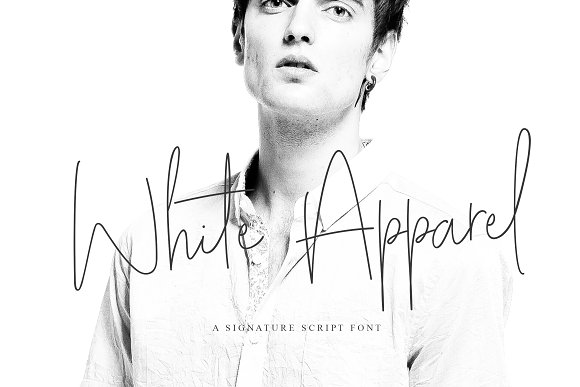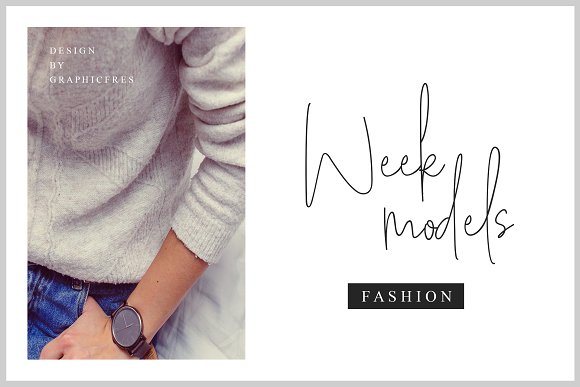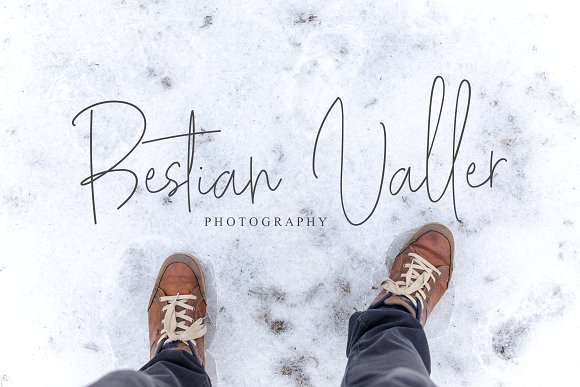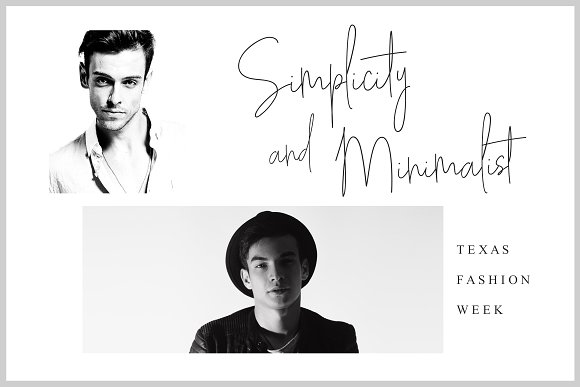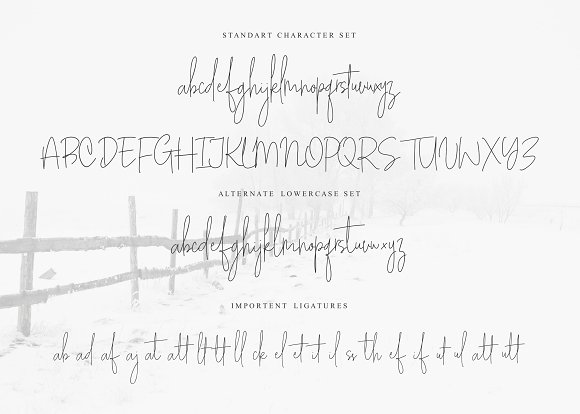
White Apparel | Script Font
White Apparel | Script Font – A Handwritting script and unique character! it’s perfect for logos, name card, magazine layouts, invitations, headers, or even large-scale artwork.